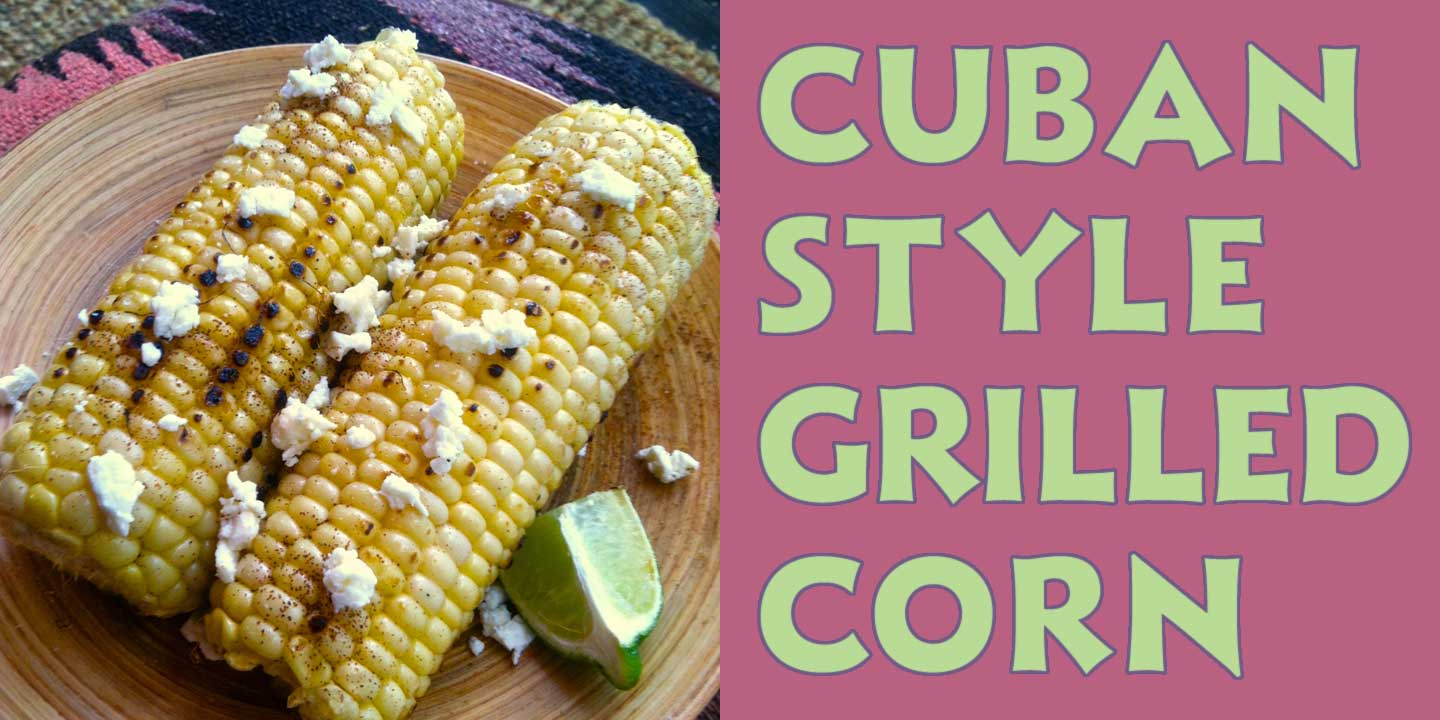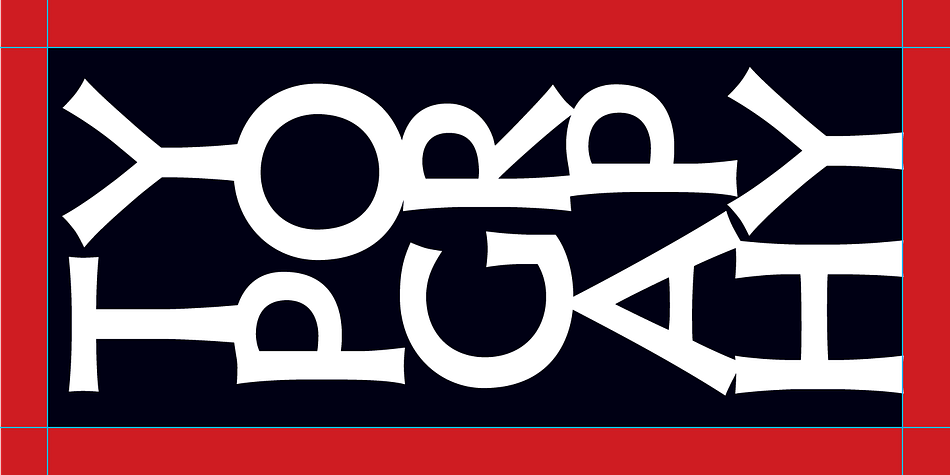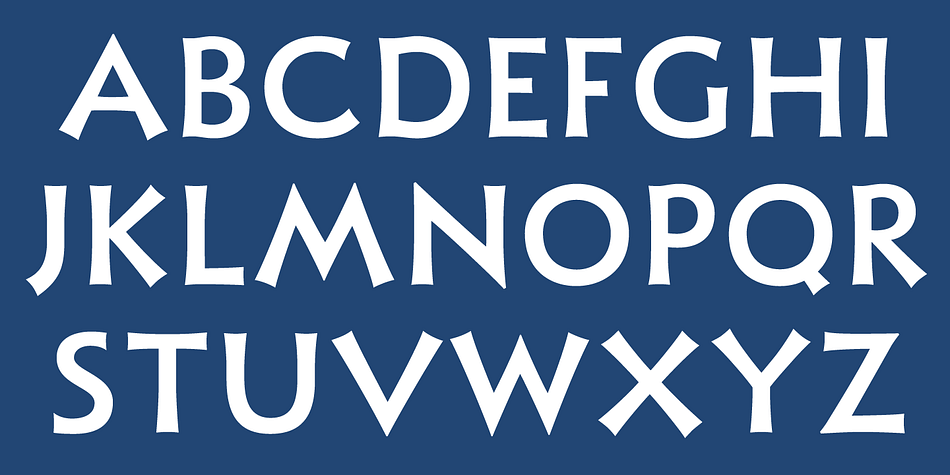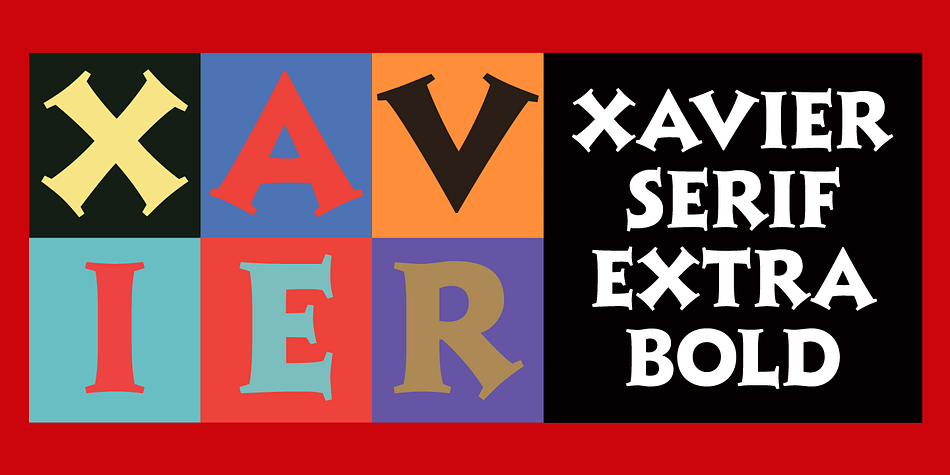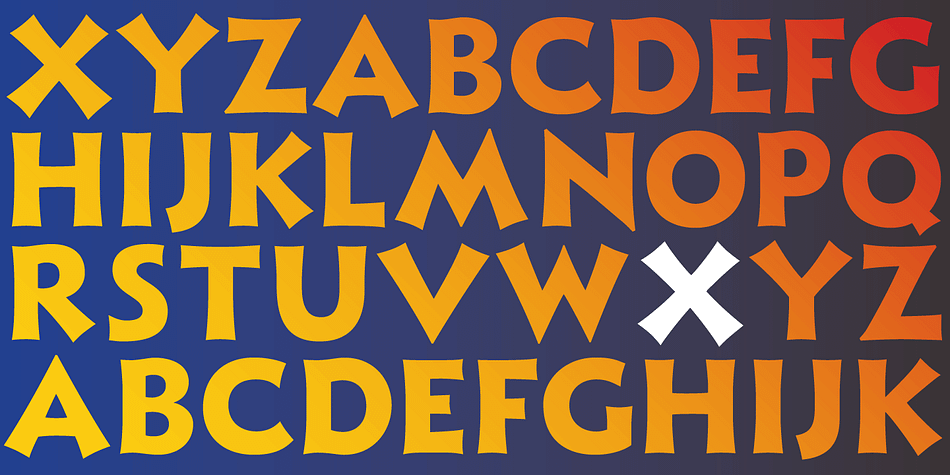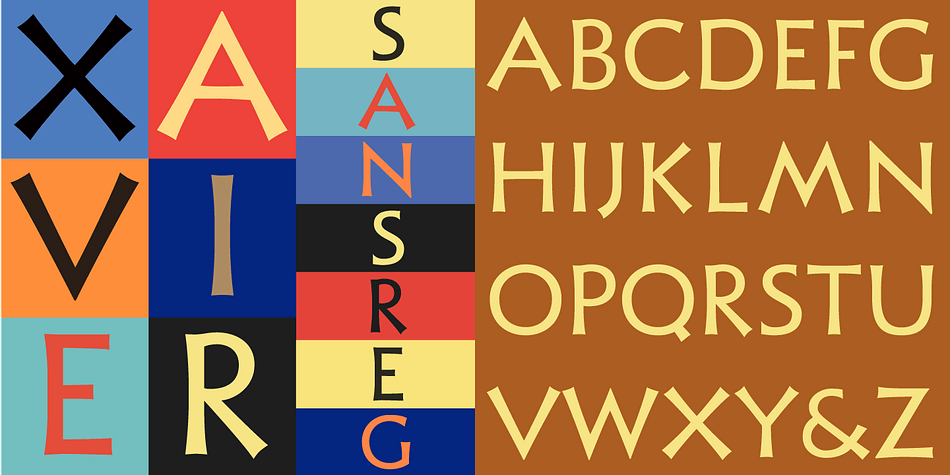
Xavier is a display sans and display serif font family. This typeface has eleven styles and was published by CastleType.
The Xavier family of typefaces is based on the delightful deco typeface called Ashley Crawford, originally designed in 1930 by Ashley Havinden. After designing Xavier Black (Serif) and Xavier Sans Black, I added Bold Sans, Medium and Medium Sans and finally added lowercase to the medium weights. Although more manageable than Ashley Crawford, Xavier, due to its very playful nature (splayed A, M, etc.) needs to be used with care, especially in terms of spacing. Xavier is a playful typeface and I have been particularly pleased to see it used in children’s books.